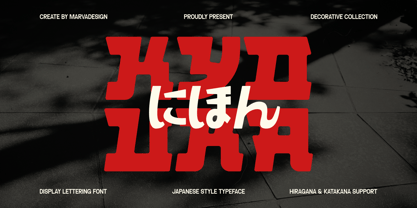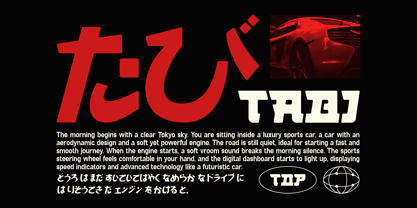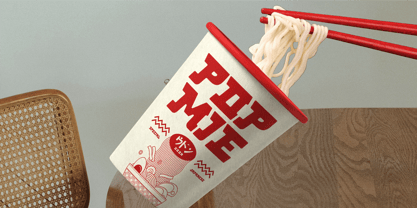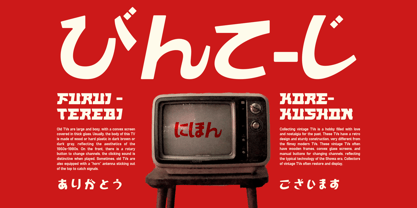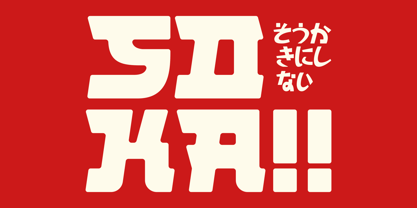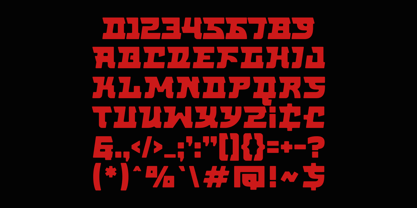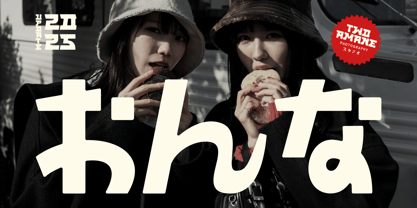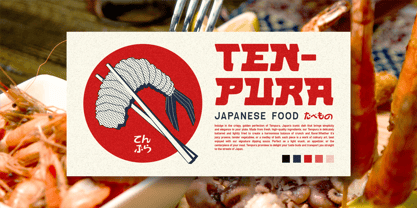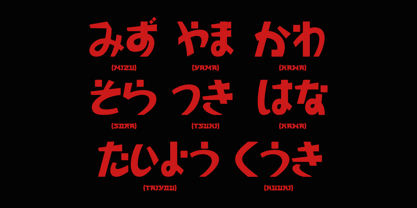
Kyouka
by Marvadesign
The Kyouka Font Family was designed by Febrie Setiawan and published by Marvadesign. Kyouka contains 1 styles. More about this family
Introducing Kyouka is a beautifully crafted Decorative Japanese Block-style font that combines traditional aesthetics with a modern touch. Each character is meticulously designed with bold, geometric strokes, creating a striking presence ideal for impactful designs. What sets Kyouka apart is its subtle rounded edges at the ends of each stroke, adding a soft and refined finish to its otherwise bold appearance. This unique detail strikes a perfect balance between rigidity and elegance, making it versatile for a variety of uses. Kyouka fully supports Hiragana and Katakana, ensuring seamless integration into Japanese typography projects. Whether you're designing posters, packaging, or digital content, Kyouka is an excellent choice for evoking a strong yet approachable Japanese-inspired look.
Designers: Febrie Setiawan
Foundry: Marvadesign